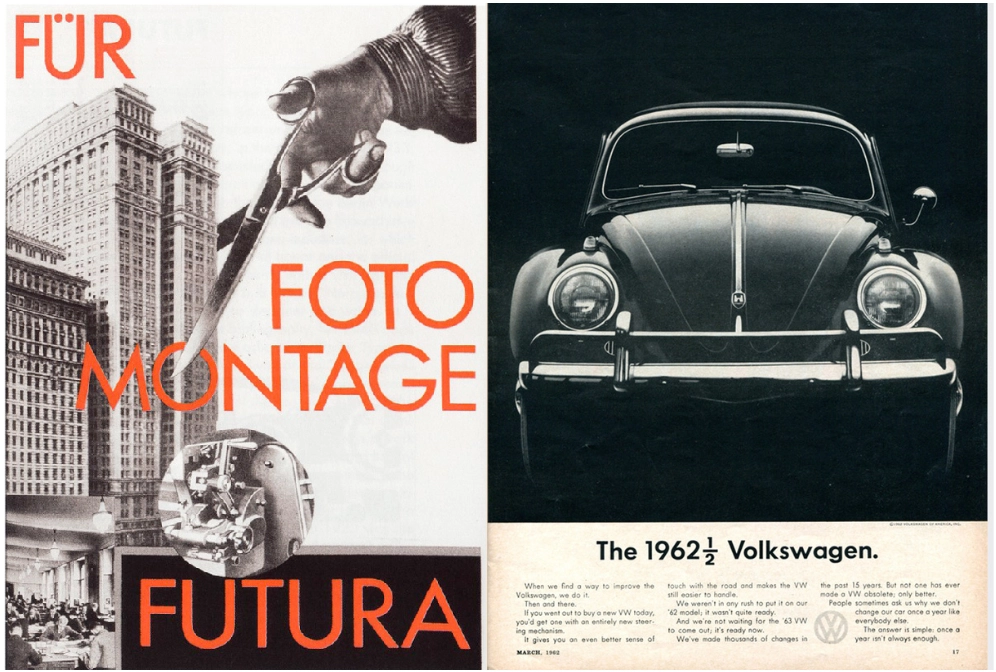
13 of the most iconic typefaces ever made – from Neue Haas Grotesk to Comic Sans
Futura in use (credits Paul Renner; VW)
(Image credit: Paul Renner; VW)
As an integral part of memorable, successful design, good typography can influence the way we perceive and interact with the world around us.
Some fonts are more successful than others, and over the centuries, certain typefaces have risen to such prominence that they've become not just tools for communication but cultural symbols.
These typefaces have left an indelible mark on the world of design. Here, with input from industry experts, we explore ten of the most iconic typefaces of all time, examining their origins, characteristics, and the legacy they've carved in typographic history. For more on typography, see our typography through the decades series, and check out our what is typography? guide for the basics.
01. Säculum
Saculum font
(Image credit: Heinrich Hoffmeister via fontsinuse.com)
Chosen by Jack Goozee, designer at Taxi Studio, Säculum found favour in the print industry around the turn of the century.
Designed in 1908 in seven weights by Heinrich Hoffmeister, Jack points out that the type’s legacy was far-reaching. “This type family went on to inspire legendary type designer Adrian Frutiger, who created Univers, and Max Miedinger who designed Helvetica,” Jack explains. “So as the inspiration behind two of the world’s most widely used typefaces, it's undeniably iconic.”
02. Neue Haas Grotesk
Neue Hass Grotesk Display in different weights
(Image credit: Max Miedinger, Christian Schwartz, Berton Hasebe)
This interpretation of Helvetica was designed as part of Richard Turley’s bold 2010 revamp of Bloomberg Businessweek. "It has been beautifully restored for digital use, with characters today as fresh as they were in the 1950s," says David Airey.
The goal was to stay as true as possible to the original letterforms and spacing, rather than reinvent the wheel. Max Miedinger’s original design featured some fascinating alternates, like a cedilla resembling a flattened comma – apparently a Swiss preference at the time – but the real standout was the straight-legged 'R', now easily accessible in digital form.
03. Times New Roman
Times New Roman text
(Image credit: Stanley Morison and Victor Lardent)
The history of Times New Roman is embedded in British media history. Commissioned by the British newspaper The Times in 1931, the type was designed by Stanley Morison and Victor Lardent and is characterised by its balanced proportions and structured serif letterforms.
Of course, as we know, the font became synonymous with academic and professional documents and its ubiquity in word processors like Microsoft Word through the 1990s and 2000s solidified its status as the default typeface for formal writing.
04. Futura
Futura in use (credits Paul Renner; VW)
(Image credit: Paul Renner; VW)
As a product of the Bauhaus movement, Futura was created by Paul Renner in 1927, and was concerned primarily with the ethos of functionality and geometric purity. It’s defined by clean, geometric shapes and lacks serifs, using a minimalistic design to convey a sense of modernity and precision.
Through the 20th century, it was used extensively in advertising; most notably in Volkswagen adverts, and it was even the typeface of choice for a plaque left on the moon by Apollo 11.
05. Akzidenz-Grotesk
Sample of Akzidenz-Grotesk font
(Image credit: Smurreayinchester)
"I would rank Akzidenz-Grotesk as one of the most influential typefaces in the history of graphic design," says Julio Zukerman, type designer at Type of Feeling. "It is a sans-serif grotesque typeface (maybe the first), released in 1896 by Berthold Type Foundry, and some say that it paved the way for modern typography – especially in the development of the now so common neo-grotesque typefaces like Helvetica.
"It may not be as refined or as immediately recognizable today, but its influence is undeniable. It remains a cult classic among designers who appreciate its history and slightly imperfect, humanist grotesque charm," Julio adds.
06. Garamond
Garmond on a newspaper
(Image credit: Bettmann / Contributor via Getty Images)
Garamond is a timeless font that has been historically used as a favourite type for large bodies of printed material – its well-proportioned characters make it one of the most beautiful and readable typefaces for book printing, as well as official documents or process-driven products like manuals.
Named after the 16th-century French type designer Claude Garamond, it has undergone numerous iterations, with the most notable revival in the early 20th century by Jean Jannon.
Celebrated by the print and artistic community, it’s rarely used digitally because it wasn’t designed with pixels and screen limitations in mind, but it has appeared in numerous campaigns for tech companies including Google and Apple.